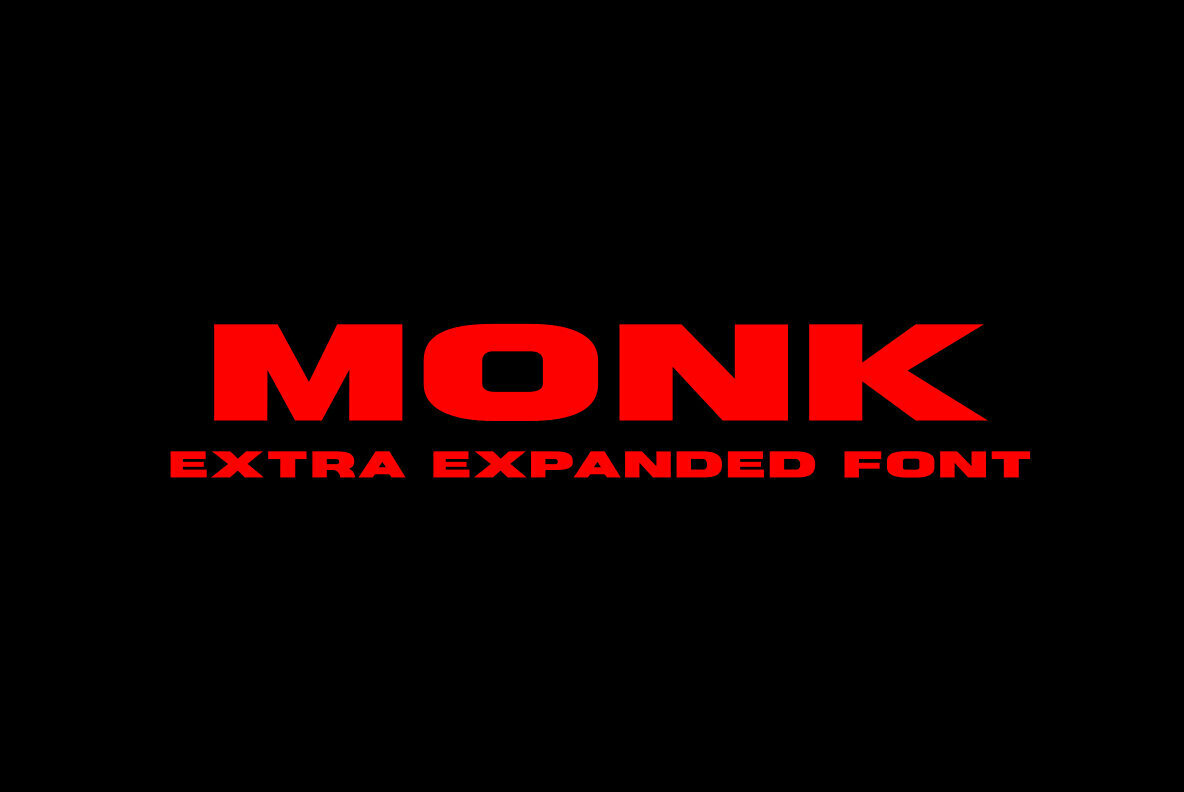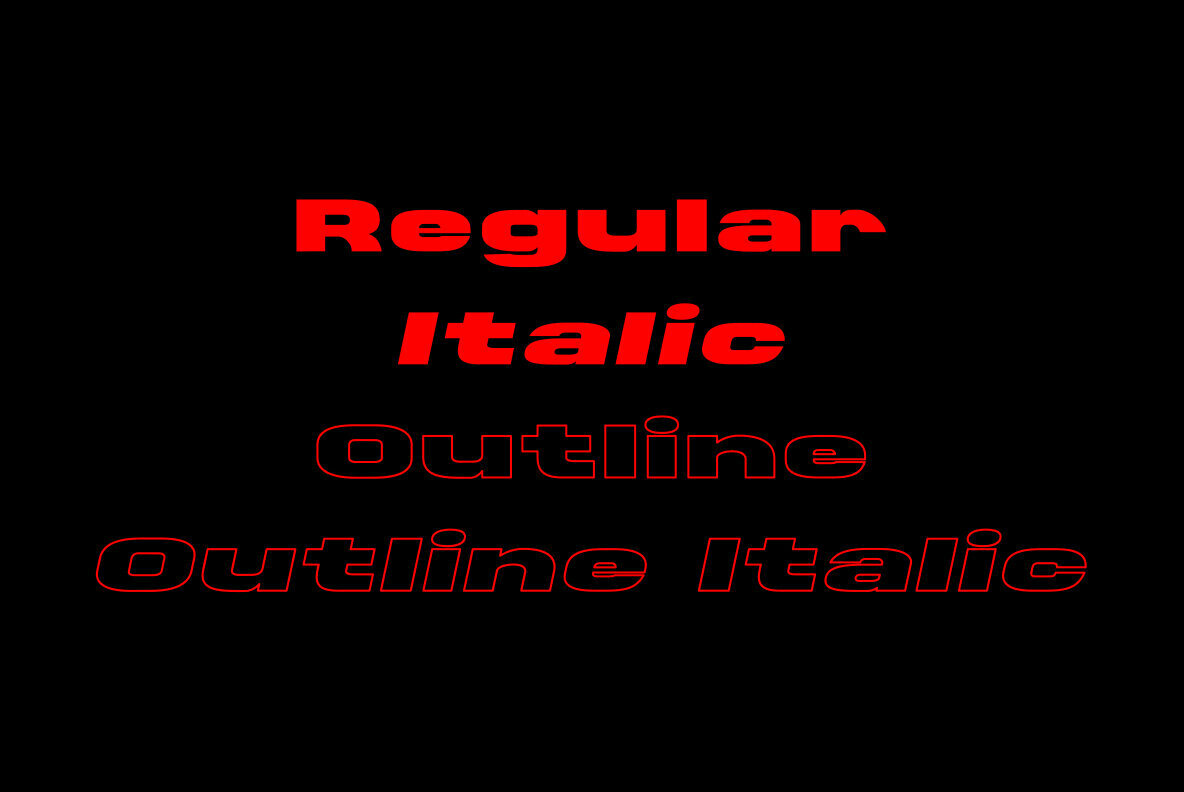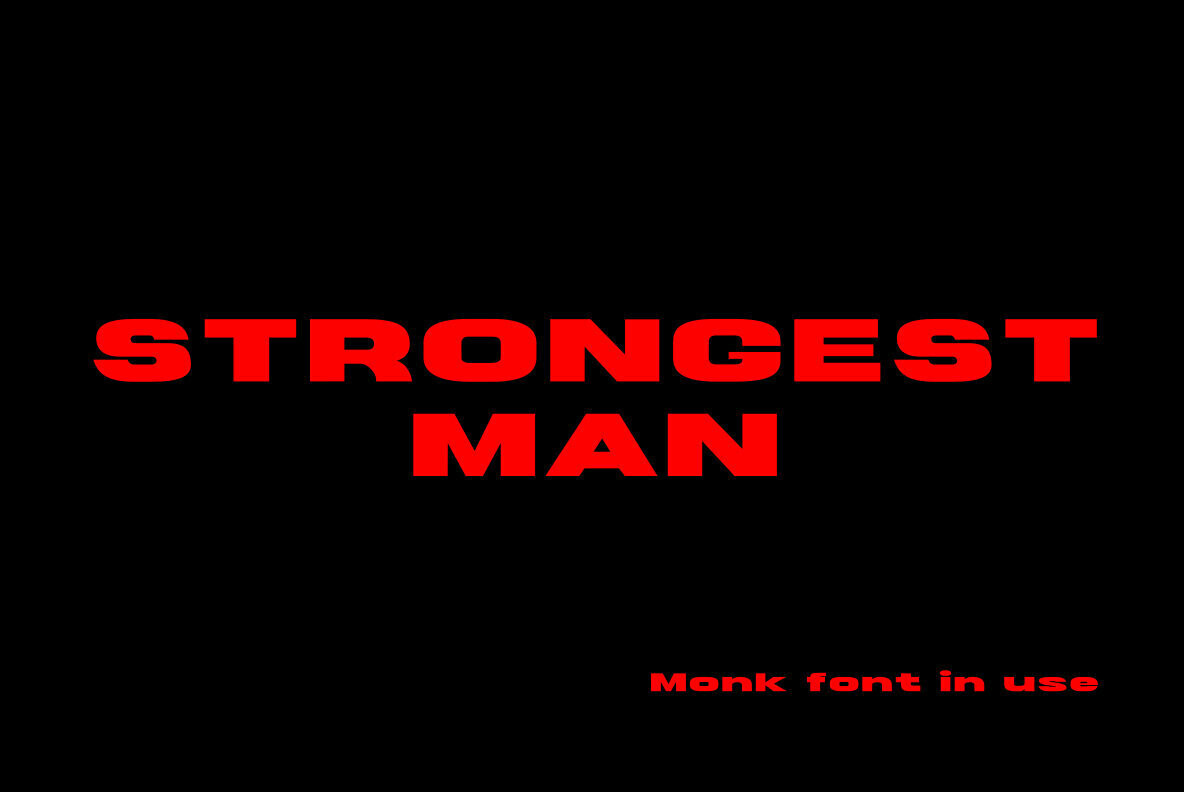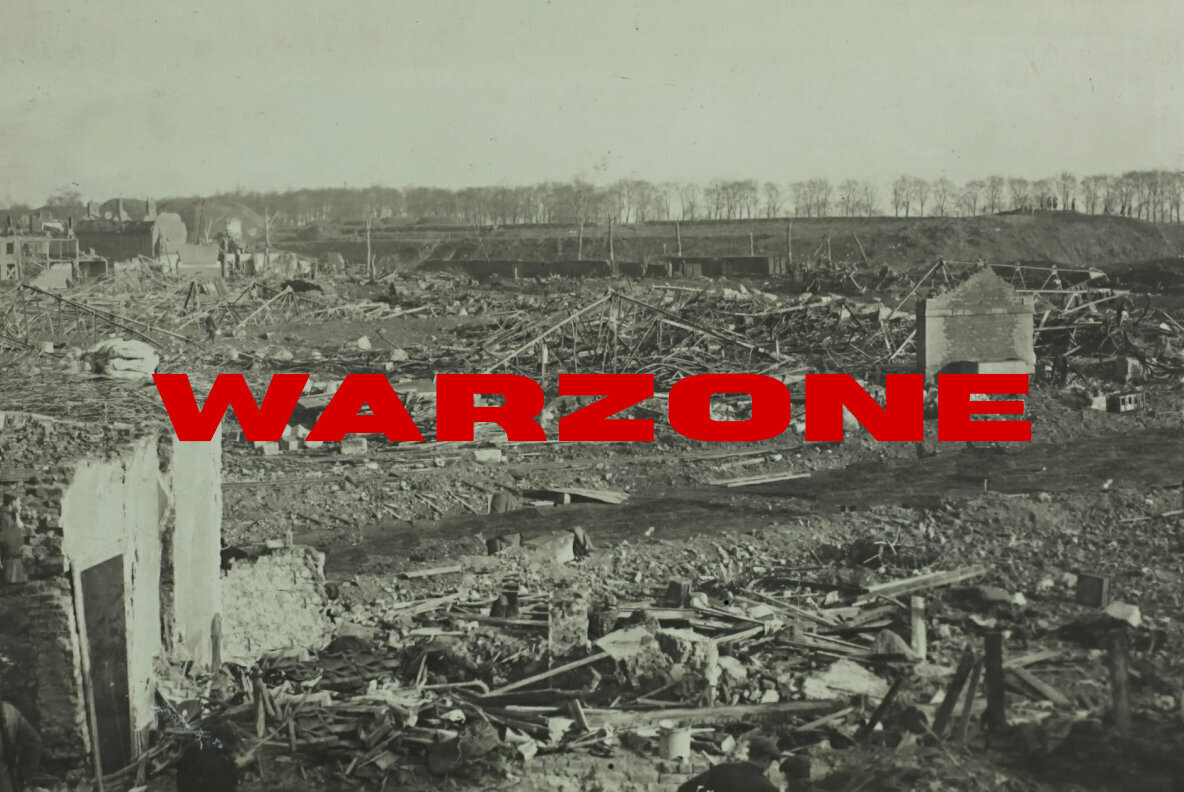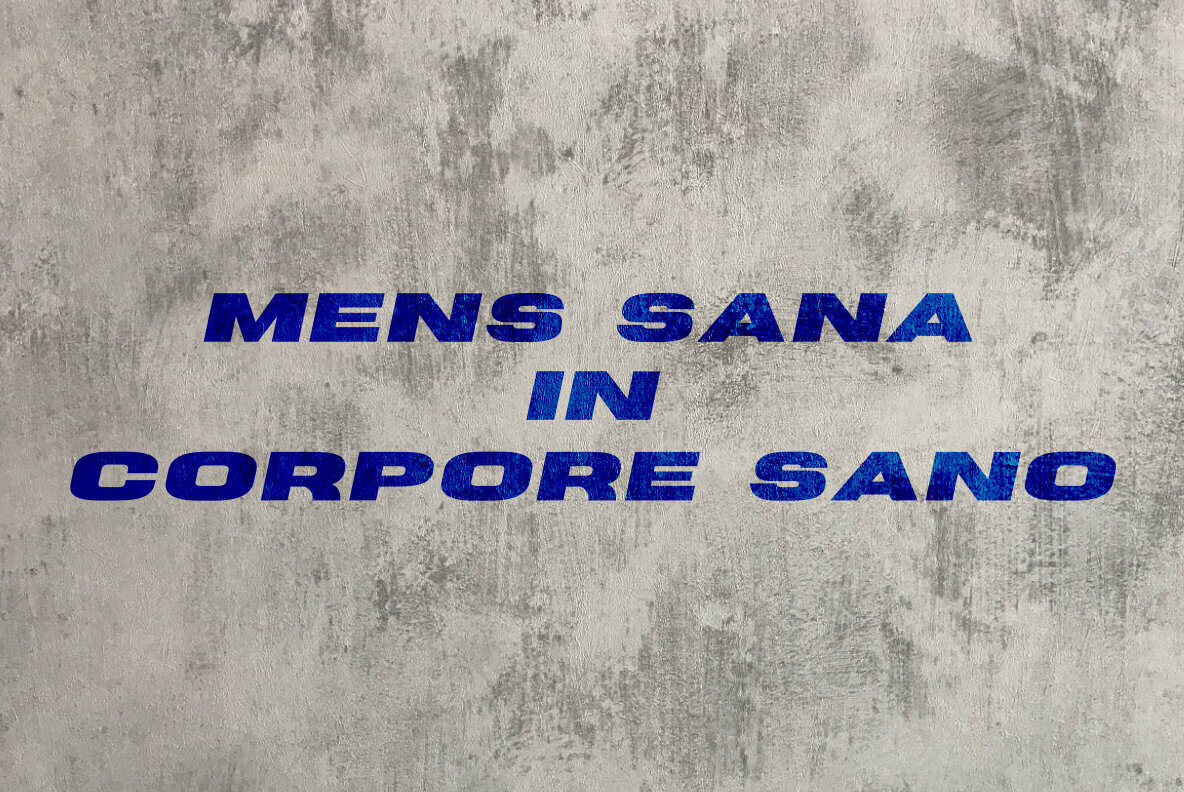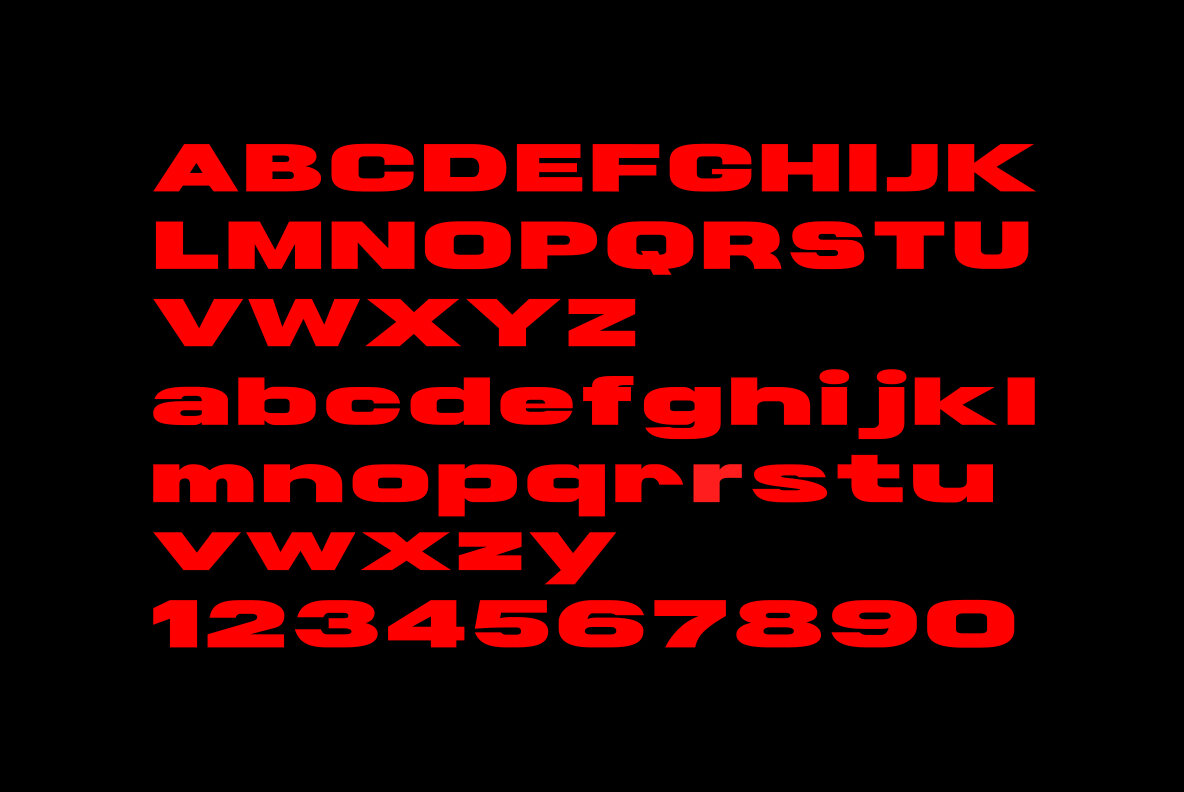
Monk Font
Monk font is made with an extra expanded style and combined with the value of beauty and authenticity so that it looks like it has a solid impression. suitable for use in graphic design such as logos, billboards, posters, and large graphic designs.
Making a font I always pay attention to the quality and value of the font to create the best font. For me, fonts not only function as visual communication, but also as a form of expression that expresses the feelings that the creator of the font wants to convey. and my principle is to always prioritize quality...